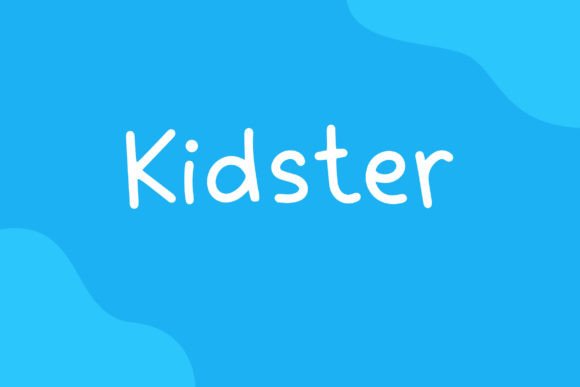
Kidster: A Handmade Comic Display Font for Creative Projects
If you're searching for a comic display font that brings a handmade feel to your designs, Kidster might be the perfect choice. This unique typeface is ideal for a wide range of creative and professional applications, offering both visual appeal and versatility. Whether you're working on comics, posters, or even business stationery, Kidster can add a distinctive touch to your work.
What Is Kidster?
Kidster is a custom-designed font that mimics the look of hand-drawn lettering, giving it a whimsical and artistic quality. Its casual, playful style makes it especially suitable for projects that require a personal or expressive tone. Unlike more formal typefaces, Kidster embraces imperfections, making it ideal for creative endeavors that value originality and charm.
The font's design is inspired by traditional comic book lettering but with a modern twist. It features slightly uneven lines, small variations in stroke width, and a natural, unpolished feel that adds character to any text. This handmade aesthetic sets it apart from other fonts, making it a popular choice among designers who want to stand out from the crowd.
Key Features of Kidster
One of the most notable characteristics of Kidster is its readability. Despite its informal appearance, the font remains easy to read, even at smaller sizes. This makes it suitable for use in headlines, titles, and other prominent text elements where clarity is essential.
Kidster also offers a wide range of glyphs, including uppercase and lowercase letters, numbers, punctuation, and special characters. This flexibility allows it to be used in various contexts, from simple logos to complex layouts. Additionally, the font supports multiple languages, making it a practical option for international projects.
Another advantage of Kidster is its scalability. Whether you're designing a large banner or a small card, the font maintains its visual integrity across different sizes. This adaptability ensures that it can be used in both digital and print formats without losing its unique personality.
Where Can You Use Kidster?
Kidster is particularly well-suited for comic book artists, illustrators, and graphic designers looking to add a personal touch to their work. Its handmade look gives comics an authentic, vintage feel, making it ideal for indie publications or self-published works. The font can also be used in cover art, title pages, and dialogue boxes to enhance the storytelling experience.
Beyond comics, Kidster finds applications in a variety of design projects. For example, it can be used in poster design to create eye-catching headlines that draw attention. In the realm of stationery, it adds a charming, handcrafted element to business cards, invitations, and greeting cards. Its playful style also makes it a great choice for branding and marketing materials that aim to convey creativity and fun.
For educational or children's content, Kidster can help create a friendly and engaging atmosphere. It's often used in books, worksheets, and learning materials designed for younger audiences. The font's informal look can make information more approachable and less intimidating, encouraging readers to engage with the content.
Who Benefits From Using Kidster?
Designers and artists who want to add a unique, handmade flair to their work will find Kidster to be a valuable tool. It's especially useful for those who are looking to differentiate their projects from others using standard fonts. By incorporating Kidster, creators can express their individuality and bring a more personal touch to their designs.
Business owners and entrepreneurs may also benefit from using Kidster in their branding efforts. Whether launching a new product line or creating promotional materials, the font can help establish a distinct brand identity. Its playful and creative nature makes it ideal for businesses targeting younger or more artistic audiences.
Students and educators can use Kidster to make learning materials more visually appealing. It’s a great option for classroom projects, presentations, and interactive activities that require a fun and engaging design. The font’s accessibility and ease of use make it a practical choice for those with limited design experience.
Strengths and Considerations
One of the main strengths of Kidster is its ability to add character and personality to any project. Its handmade look gives designs a more organic and authentic feel, which can be especially appealing in creative fields. Additionally, the font’s versatility allows it to be used in a wide range of applications, making it a flexible choice for different types of work.
However, there are some considerations to keep in mind when using Kidster. Its informal style may not be appropriate for all types of projects, particularly those that require a more professional or serious tone. In such cases, a more traditional font may be more suitable. It’s also important to ensure that the font is used in a way that maintains readability, especially in larger blocks of text.